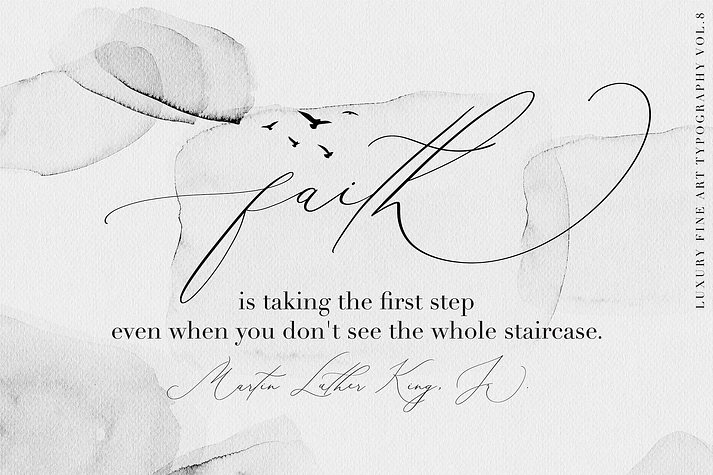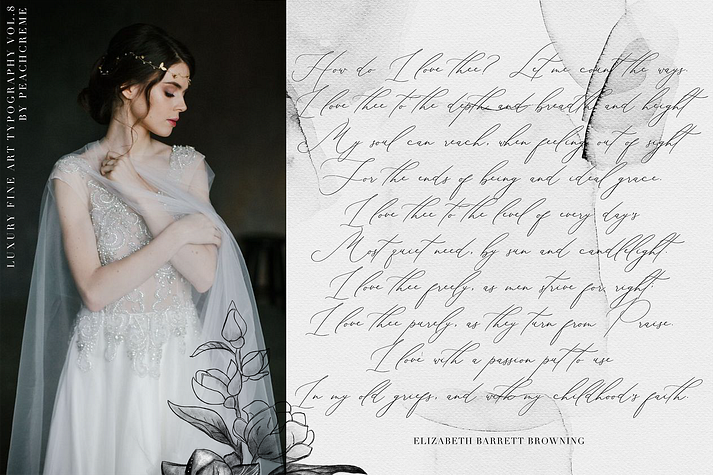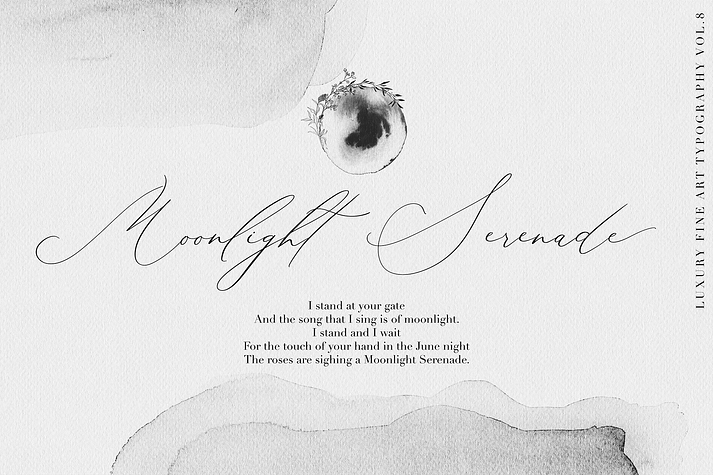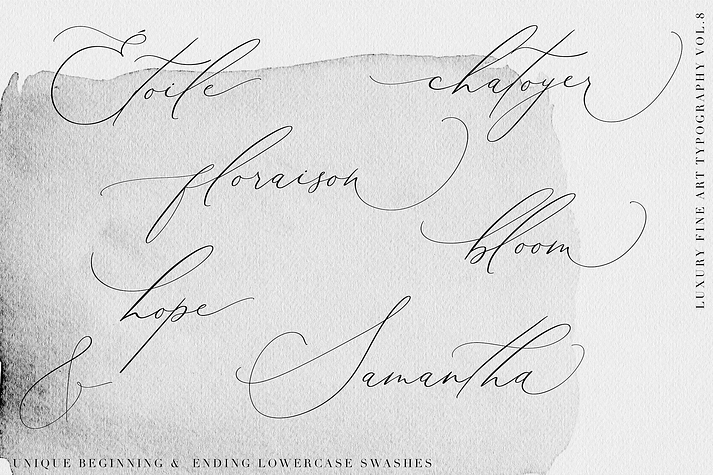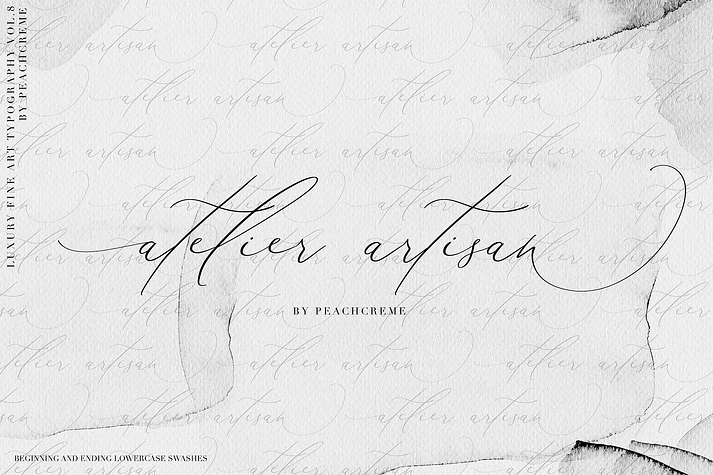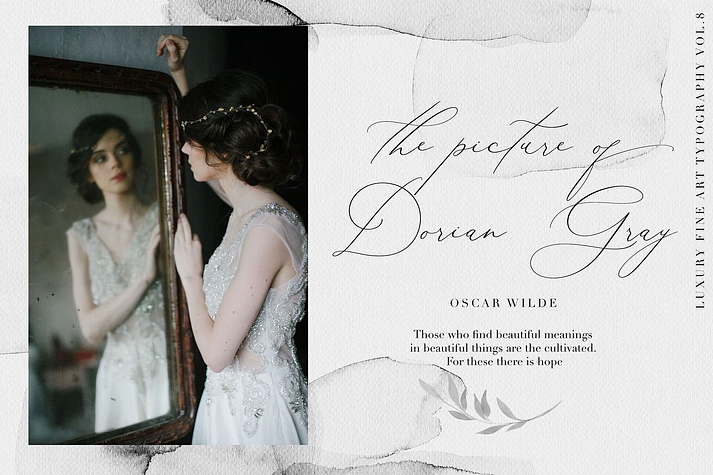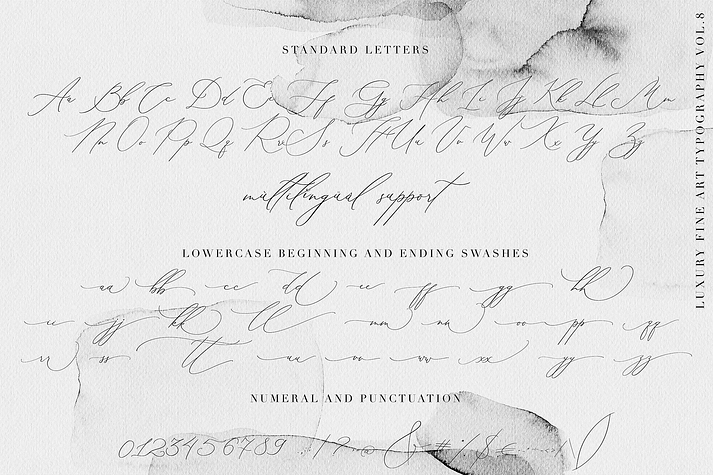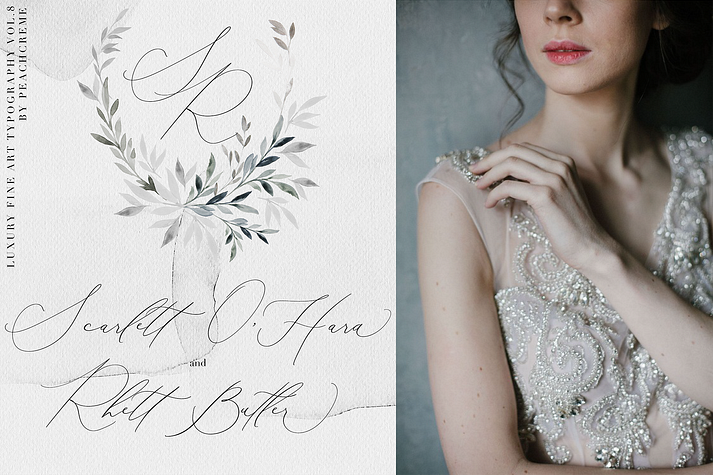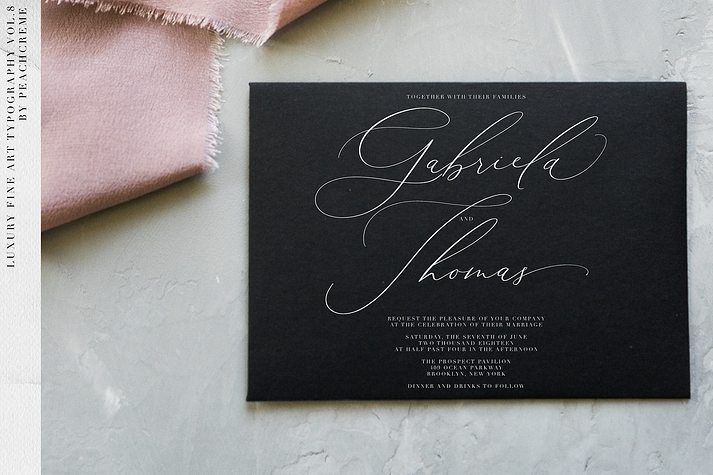
Beloved Gray
Beloved Gray is a script font family published by PeachCréme.
"Beloved Gray" is a crème de la crème modern calligraphy font with classic, sophisticated accents. It is perfect for branding, wedding invites and cards.
"Beloved Gray" includes full set of lovely uppercase and lowercase letters, multilingual symbols, numerals, punctuation and ligatures. All lowercase letters include beautiful and unique (each letter has own "unpatterned" ending) beginning and ending swashes. Also, includes following multilingual symbols